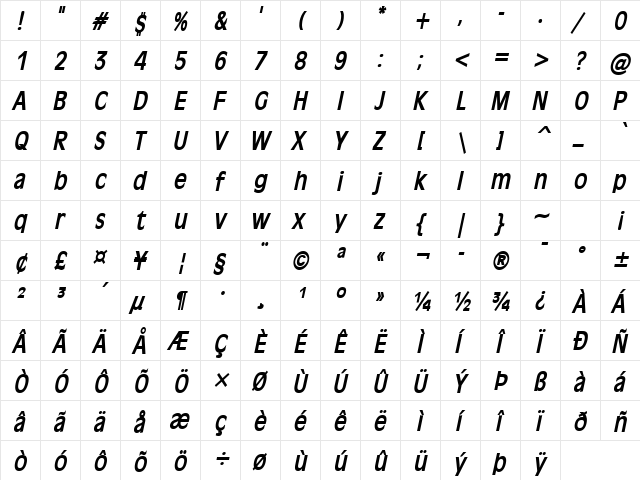
Antiqua 101 Condensed BoldItalic Font Preview
Design Context for Antiqua 101 Condensed Typeface
Antiqua 101 Condensed is a composed and adaptable typeface that performs quietly and consistently across a wide range of design contexts. The dynamic lean of this cut emphasises speed and emphasis in any layout. The heavy weight commands attention and anchors typographic hierarchies. The condensed width makes it efficient for tight spaces without sacrificing legibility.
Pro Tip: Try Antiqua 101 Condensed for annotation and caption copy alongside an upright companion — the contrast in angle creates a dynamic but ordered typographic system.